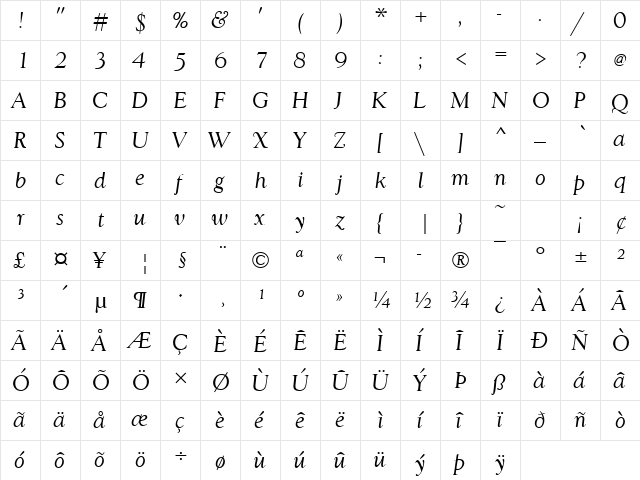
GoudyWtcT Italic
Design Context for GoudyWtcT Typeface
GoudyWtcT offers clean, dependable letterforms without strong stylistic allegiance, making it a practical choice for designers who need flexibility. The slanted form adds forward momentum and visual energy.
Pro Tip: Try GoudyWtcT for annotation and caption copy alongside an upright companion — the contrast in angle creates a dynamic but ordered typographic system.